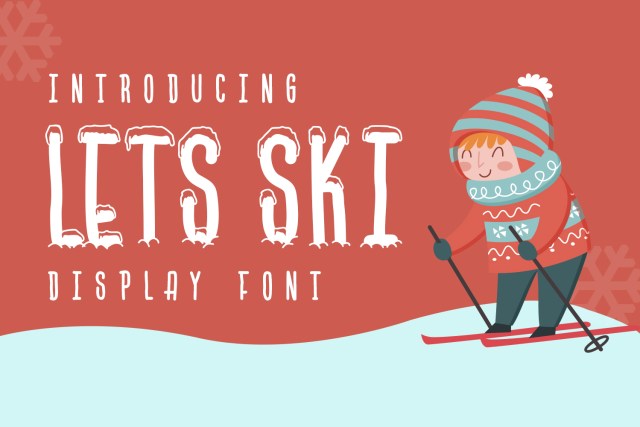
Lets Ski
The reason Lets Ski Font is genuinely exciting is its strong, bold presence and its undeniable retro charm. It typically features thick, confident strokes and stylized curves reminiscent of 1960s or 70s travel signage, instantly injecting a sense of joyous movement and nostalgia into your text. This font is a must-have for designers looking to create visuals that are both eye-catching and full of lighthearted character, ensuring your headlines stand out with a distinct vintage personality.
The Lets Ski Font family often concentrates on core styles necessary for high-impact display use, typically including a Regular (Bold) weight for maximum presence and an Outline or Distressed style to enhance the retro, aged effect. Sometimes a complementary Slanted or Italic version is included to emphasize motion and dynamism. For a font that captures the bold, fun spirit of the slopes, secure your Lets Ski Font Free Download today.